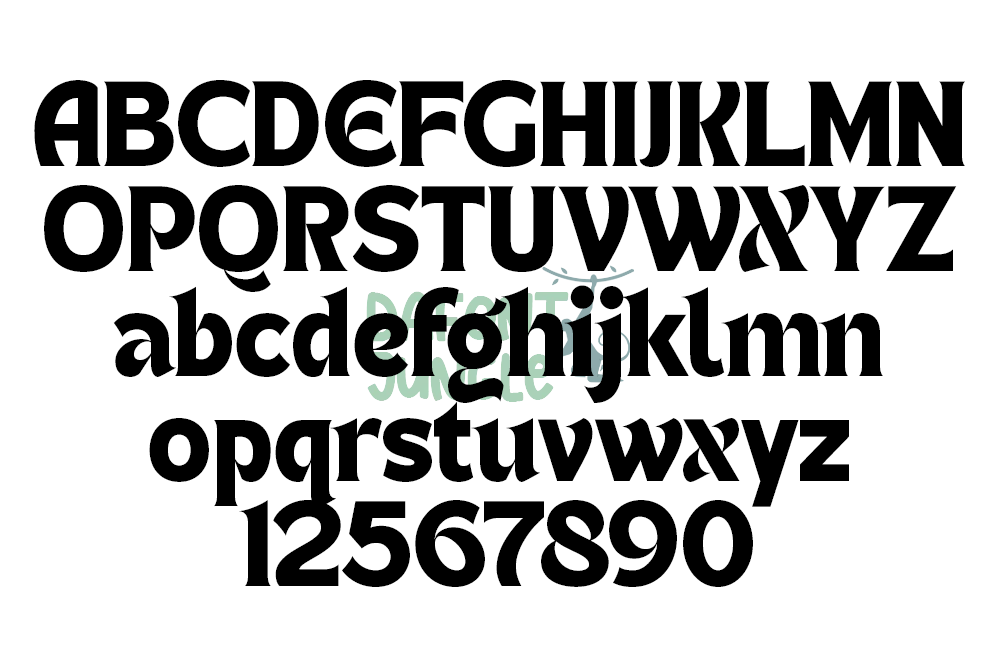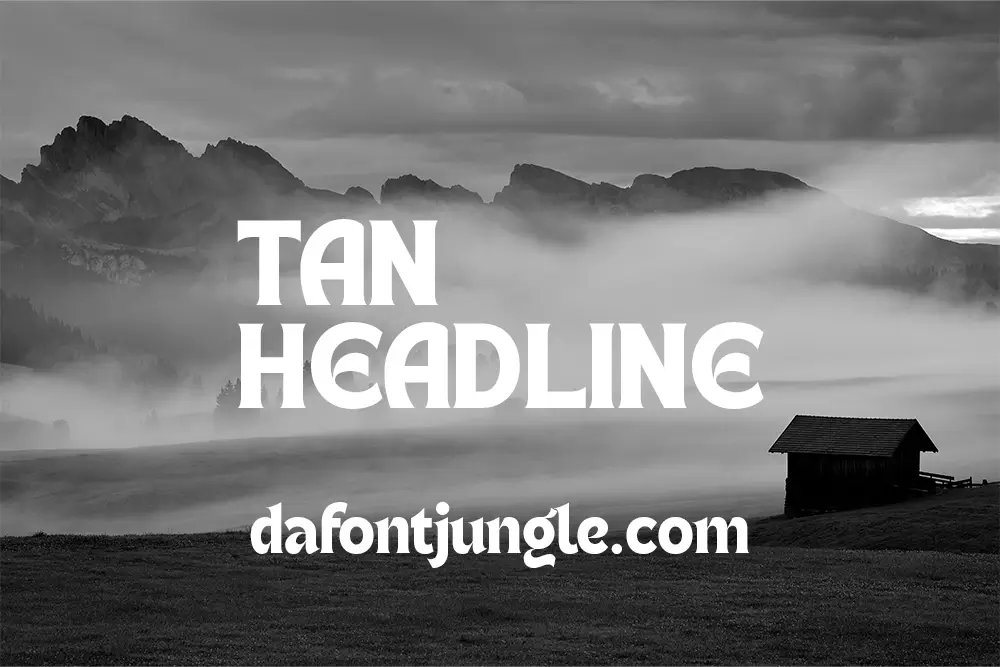
TAN – HEADLINE – Retro-Inspired Display Serif Font
TAN – HEADLINE is a bold display serif font with a retro vibe and a modern twist. It looks simple at first glance but adds just enough character to make your designs stand out. The unique curves and quirky details give it a playful edge while keeping it sharp and clean.
This font works well for headlines, posters, editorial titles, branding, and bold logos. Its nostalgic charm and minimal styling make it both eye-catching and easy to work with.